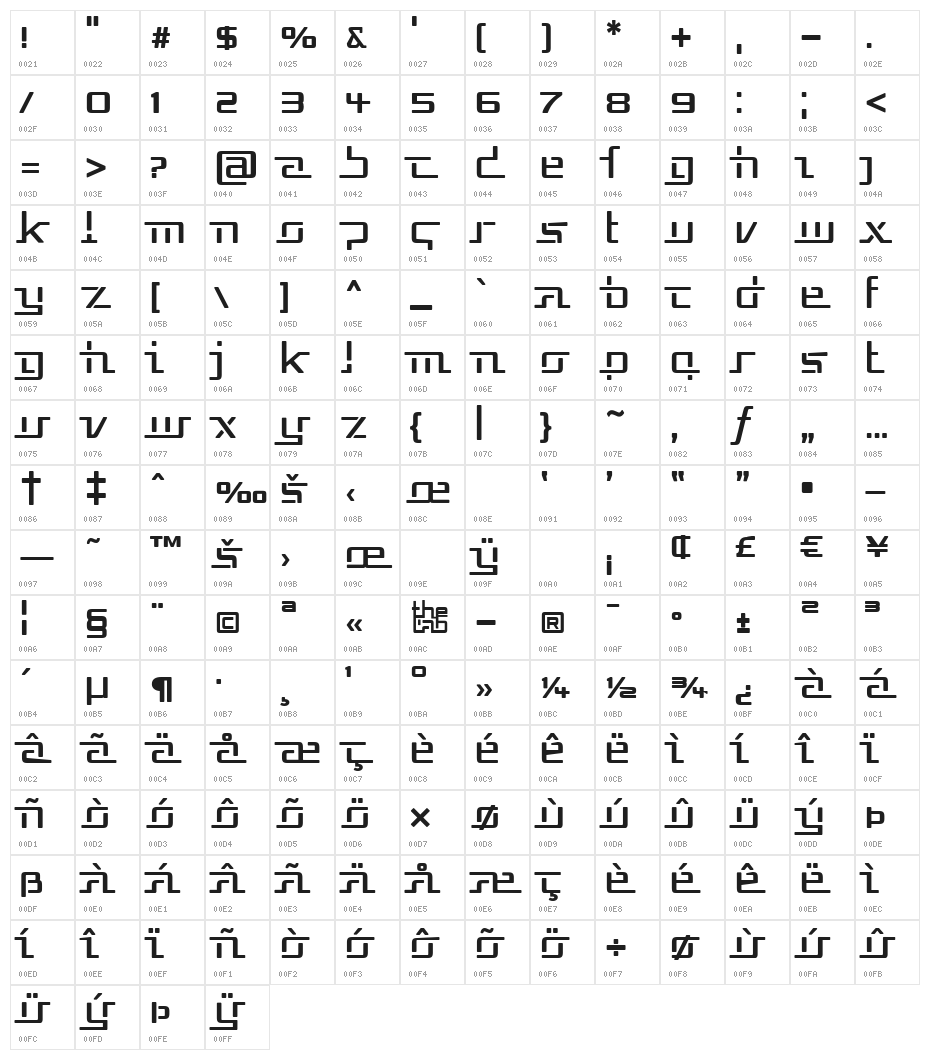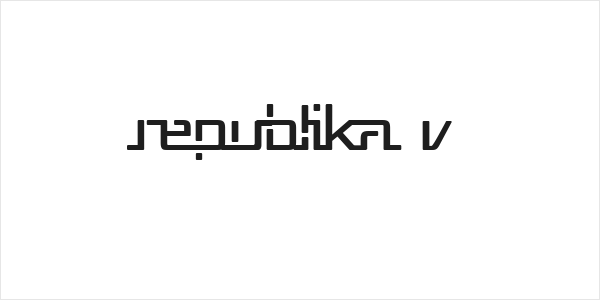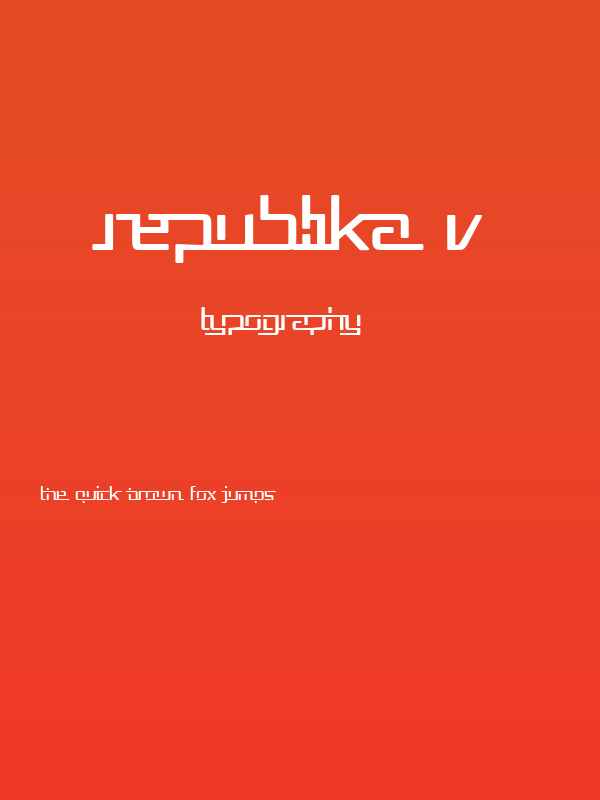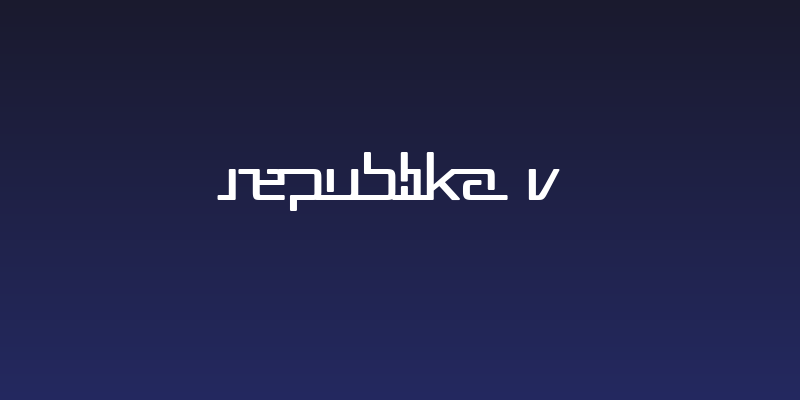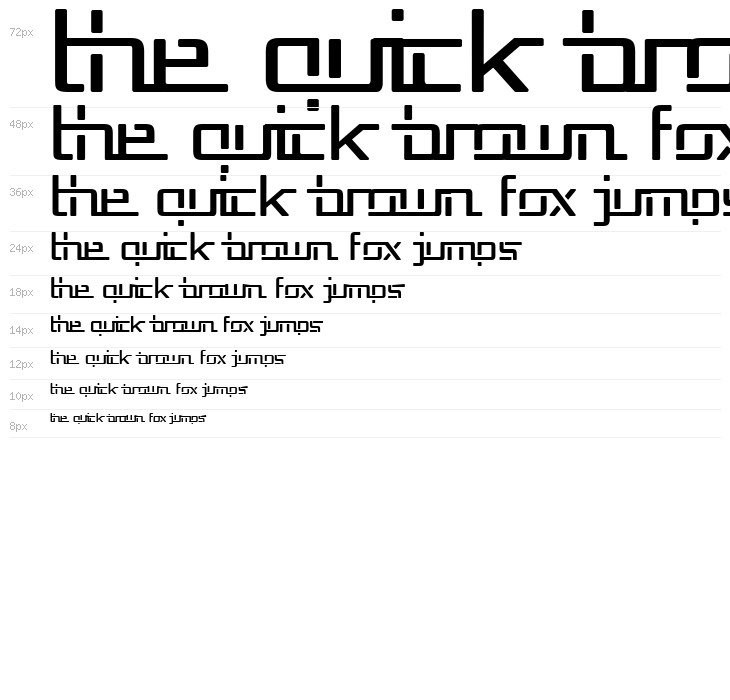
Republika V Font
Republika V Description
This font features a futuristic and geometric design, characterized by its bold, angular lines and unique letterforms. The uppercase and lowercase letters share a consistent style, with a strong emphasis on horizontal and vertical strokes, creating a structured and modern appearance. The numerals and special characters maintain this cohesive design, offering a sense of uniformity across all glyphs. The font's distinct style makes it stand out, with a clear, legible presentation that is both striking and functional. Its design is reminiscent of digital or sci-fi themes, making it ideal for projects that require a modern and innovative touch.